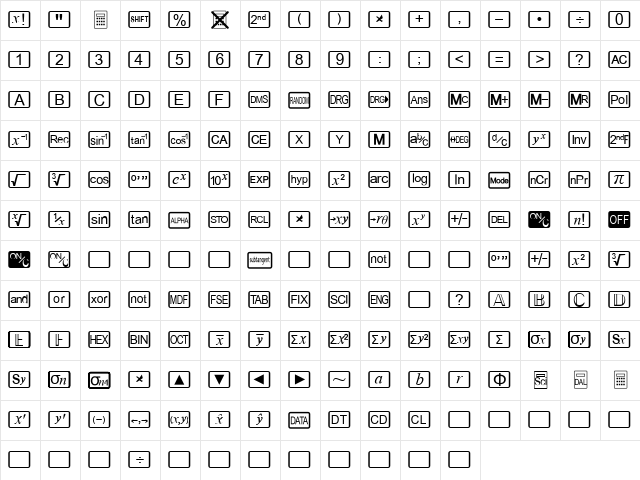
CalcHux Regular
| Foundry | subtangent |
| Designer | Duncan Keith |
Design Context for CalcHux Typeface
CalcHux is a composed and adaptable typeface that performs quietly and consistently across a wide range of design contexts.